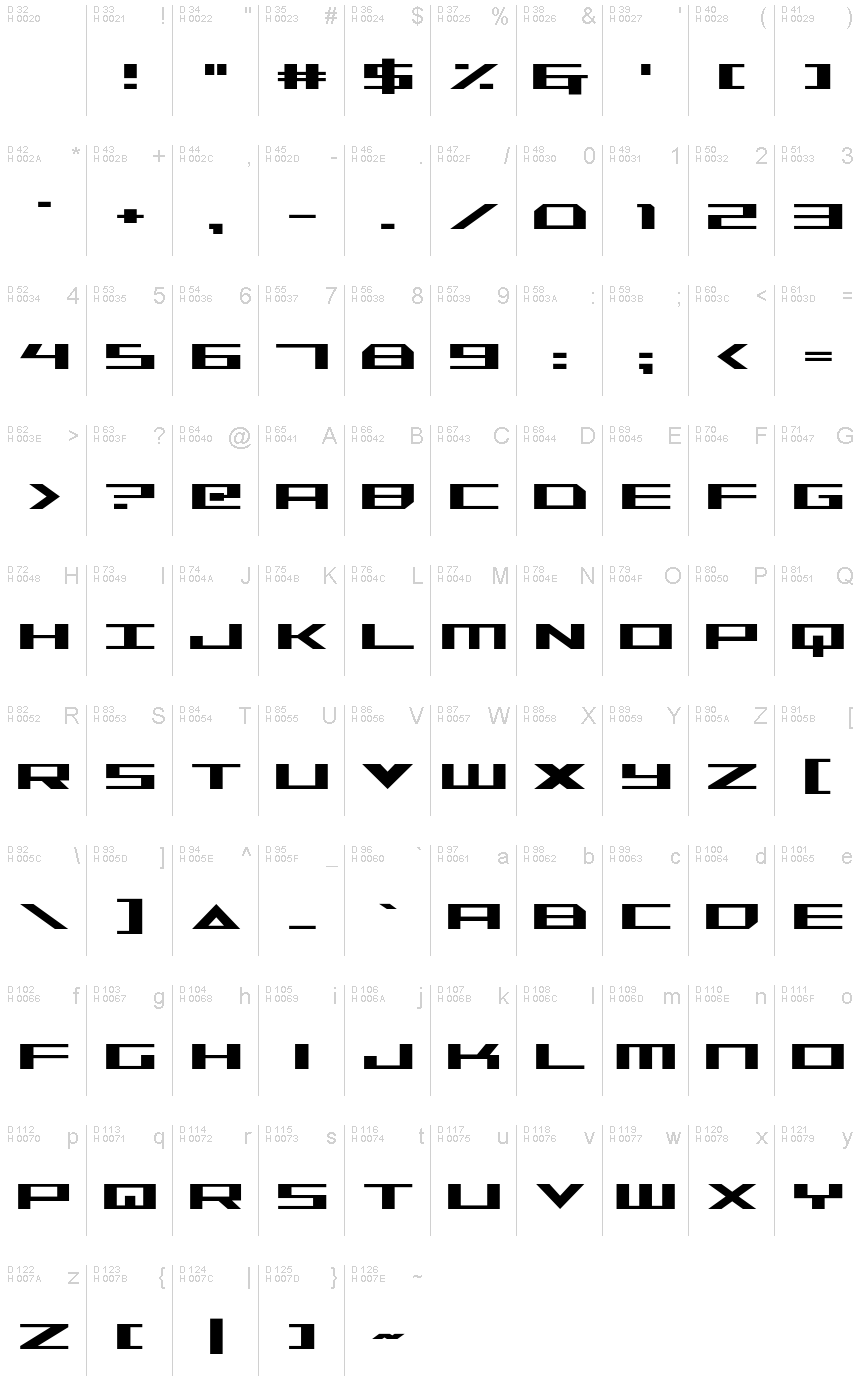
Trireme Condensed by Daniel Zadorozny of Iconian Fonts is a free futuristic display font with broad, squared letterforms and a severe machine-cut profile. Thick strokes, rectangular openings, and sharply clipped corners give the lettering the look of industrial panels or spacecraft markings.
Circuit-board diagrams and hard-edged technical illustrations make a convincing setting for this design, especially in game interfaces, science-fiction posters, and electronic music packaging. Its geometric construction can become part of the depicted machinery rather than sitting apart as neutral type, which also suits technology branding and screen graphics.